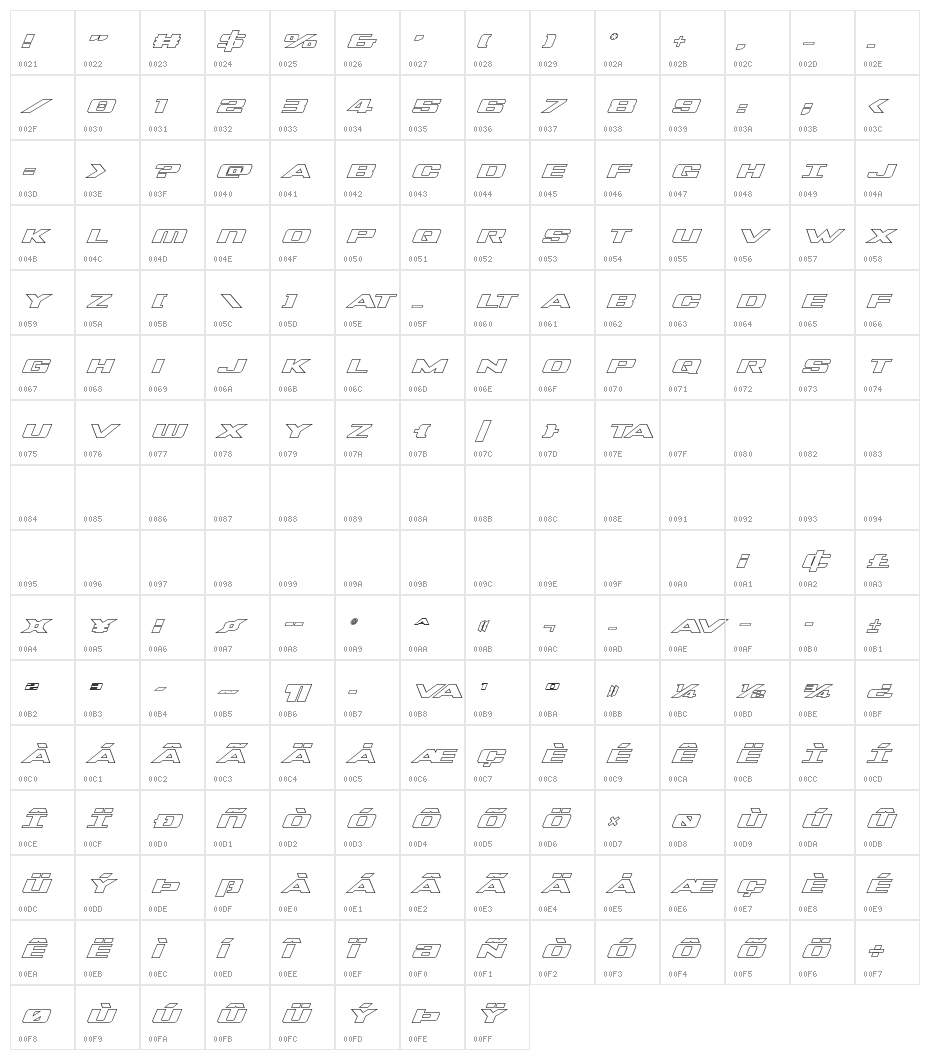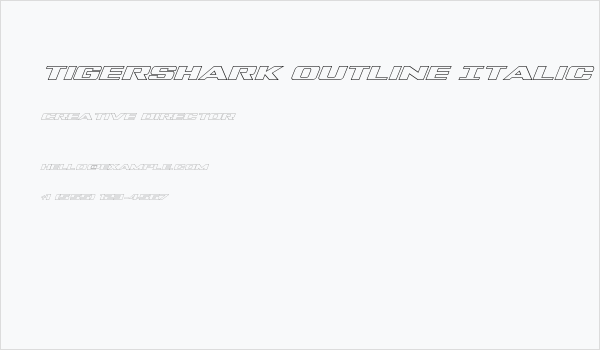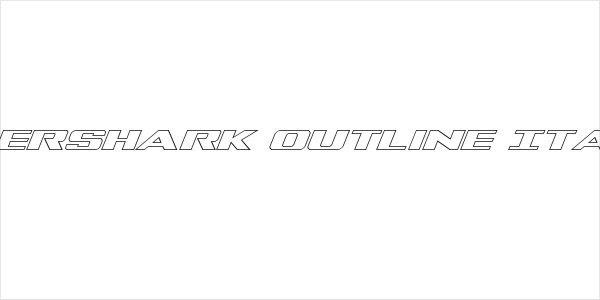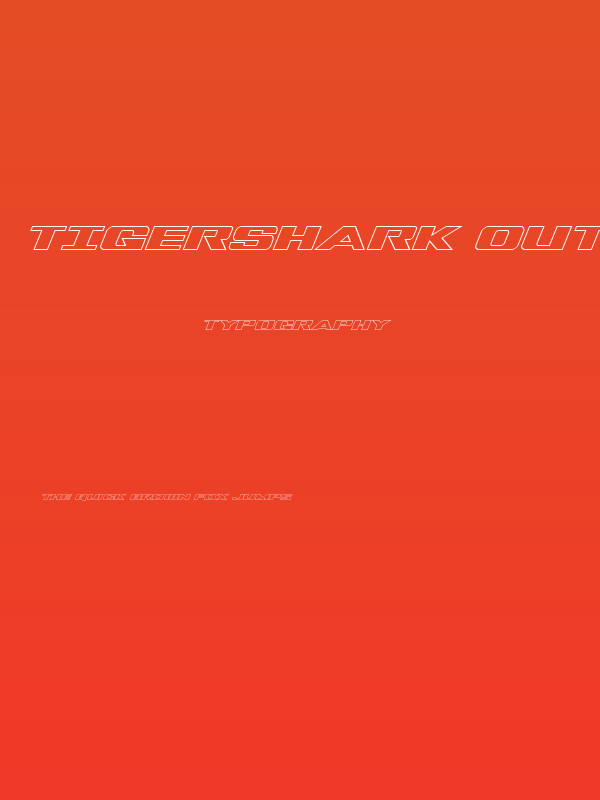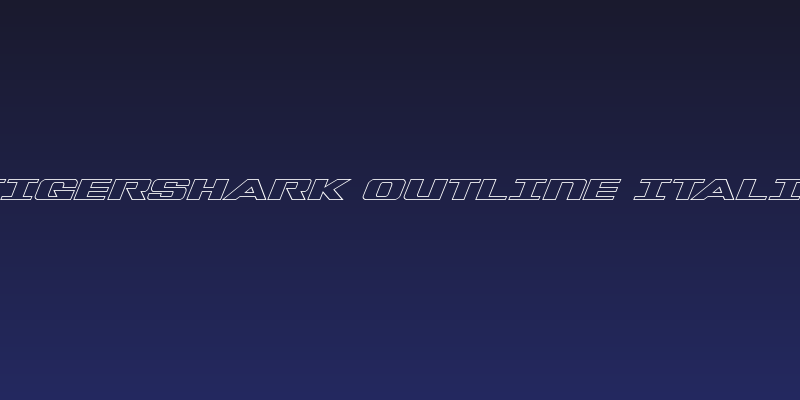
Tigershark Outline Italic Font
Tigershark Outline Italic Description
This font features a bold, italicized outline style that gives it a dynamic and modern appearance. The uppercase and lowercase letters are designed with sharp angles and clean lines, creating a sense of movement and speed. The outline effect adds a layer of depth, making the characters stand out against various backgrounds. The numerals and special characters maintain the same stylistic approach, ensuring consistency across all elements. This font is ideal for projects that require a futuristic or sporty aesthetic, such as branding for tech companies, sports teams, or automotive industries.
| Use Case | Logos, Headlines, Branding |
| Proposed Projects | Ideal for tech branding, sports team logos, automotive industry designs, and futuristic themes. |